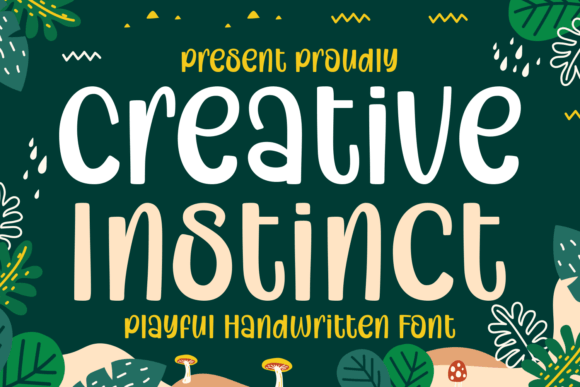
Unleash the Creative Instinct within you - A Font Crafted for Unparalleled Expression!
Journey into the realm of boundless creativity with the Creative Instinct font - a masterpiece born from the fusion of artistic passion and typographic excellence. Its captivating script style dances across your designs, evoking a sense of playfulness and uniqueness that sets your creations apart.
Meticulously crafted by the visionary Ade (7NTypes), Creative Instinct is more than just a font; it's an extension of your creative spirit. With its bold and slender strokes harmonizing in perfect balance, this font captures the raw energy of handwritten artistry, lending an authentic, handcrafted charm to your projects.
Picture your designs adorned with the enchanting allure of Creative Instinct. Its playful and expressive nature enlivens posters, headings, and any text that craves a touch of whimsy. Its versatile character lends itself seamlessly to branding, packaging, and social media graphics, injecting a dose of visual intrigue that captivates and engages.
But Creative Instinct's allure extends far beyond its aesthetic appeal. This font is a gateway to unlocking your inner creative genius, inviting you to explore uncharted design territories and push the boundaries of expression. Its organic flow and dynamic linework inspire a sense of freedom and spontaneity, empowering you to craft designs that resonate with authenticity and artistry.
So, embrace the Creative Instinct within you and let this extraordinary font ignite your imagination. As you weave your words into captivating designs, you'll discover a world where creativity knows no bounds, where each project becomes a canvas for your artistic expression.